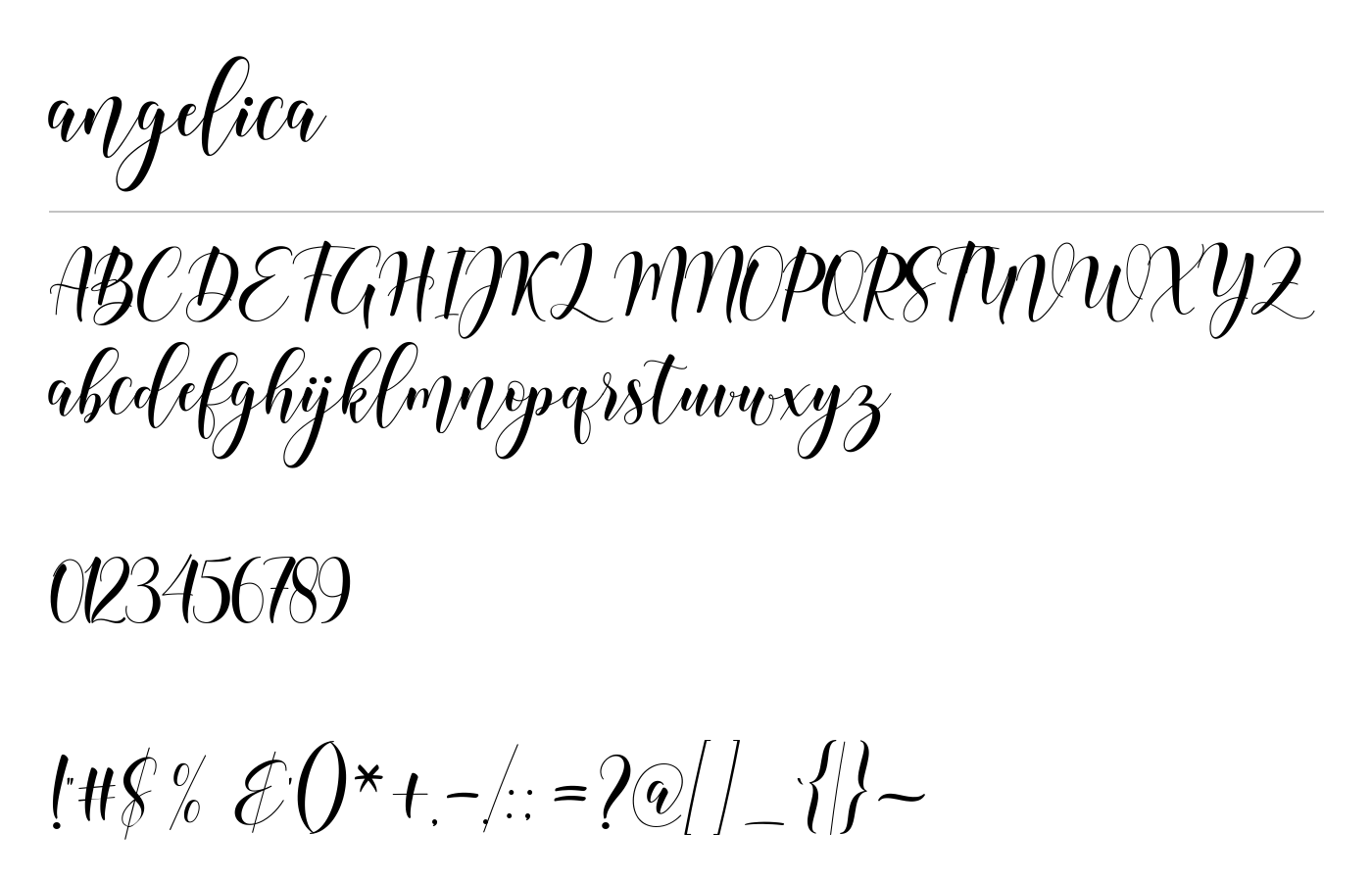
Angelica is an elegant script font featuring flowing, calligraphic letterforms with high contrast between thick and thin strokes and graceful swashes. Its delicate, handwritten style exudes sophistication and charm, making it ideal for invitations, branding, and any design needing a refined, personal touch. With its expressive curves and stylish uppercase and lowercase characters, Angelica works beautifully in logos, wedding stationery, and editorial headlines where elegance and warmth are desired.
angelica Font